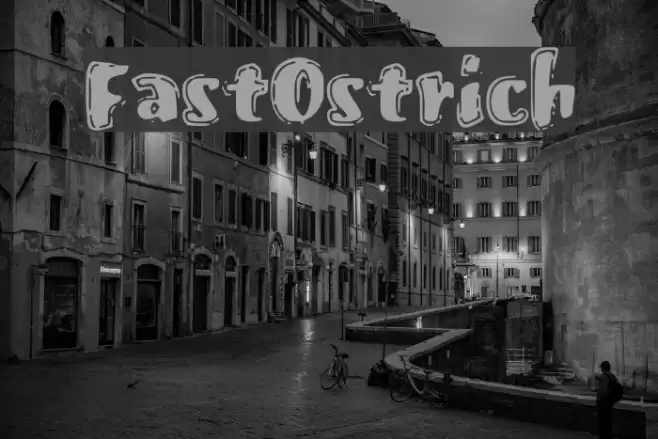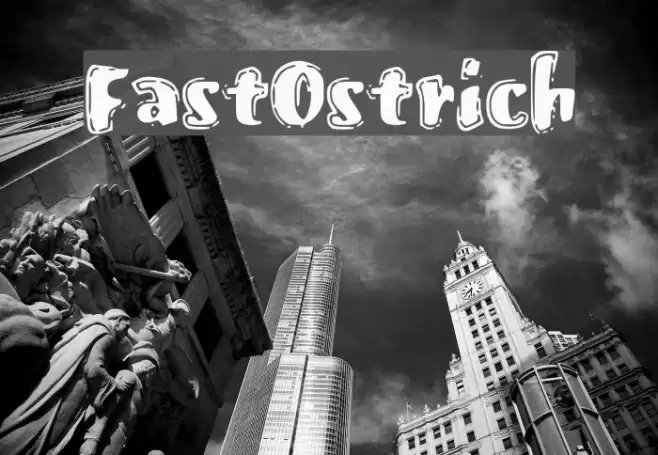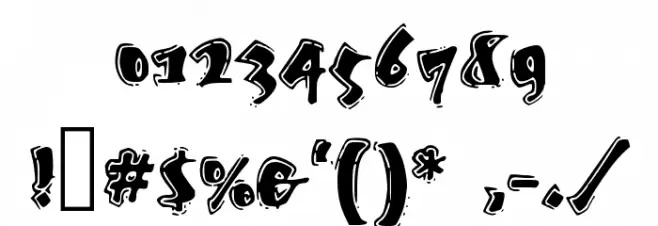
FastOstrich Font
FastOstrich Description
This font exhibits a bold and dynamic style with a playful, graffiti-like appearance. The characters are heavily stylized with irregular edges and a slightly distressed look, giving them a unique and edgy feel. The uppercase and lowercase letters maintain a consistent design, with exaggerated curves and angles that create a sense of movement and energy. The numbers and special characters follow the same aesthetic, ensuring a cohesive look across all elements. This font is ideal for projects that require a bold statement or a creative, urban vibe.
A bold, graffiti-inspired font with a dynamic and edgy style from Uncategorized fonts.
- Proposed Projects: Perfect for street art designs, music album covers, urban-themed posters, and creative branding projects.
- Overall Style: Modern, Decorative